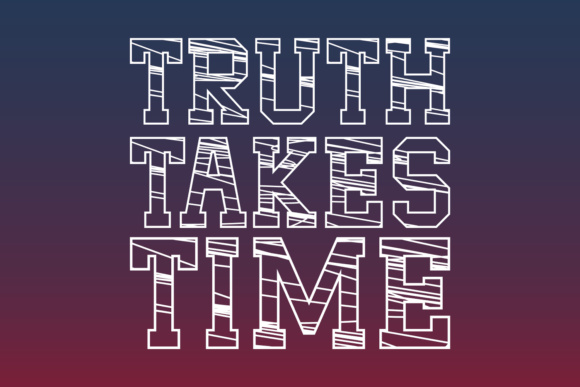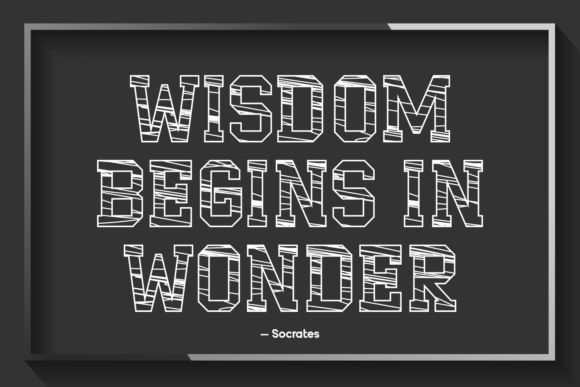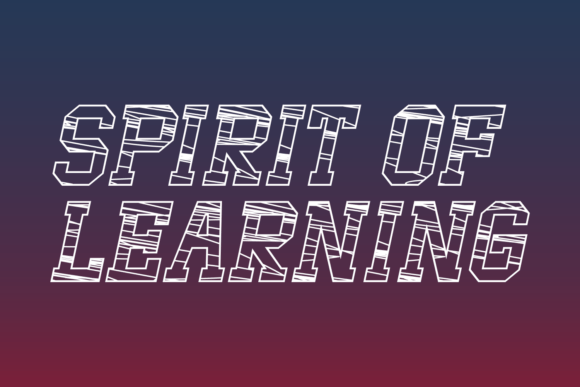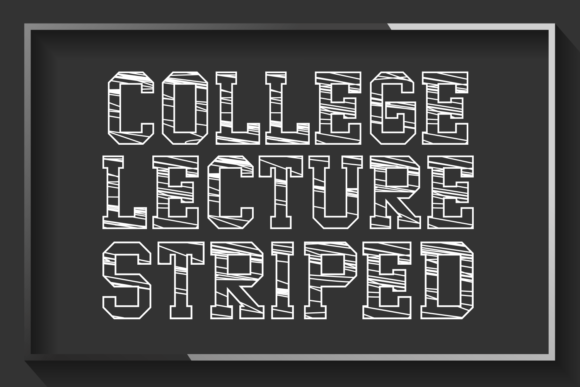
Introduction to College Lecture Striped Font
College Lecture Striped is a bold display font that brings a touch of classic academia to your designs.
With clean lines and a confident presence, this font adds a scholarly and dynamic element to your text The distinctive stripes give it a sporty and collegiate vibe, making it ideal for headers, banners, or any project where you want to convey a sense of academic spirit.
Key Features of College Lecture Striped Font
Why Choose College Lecture Striped Font?